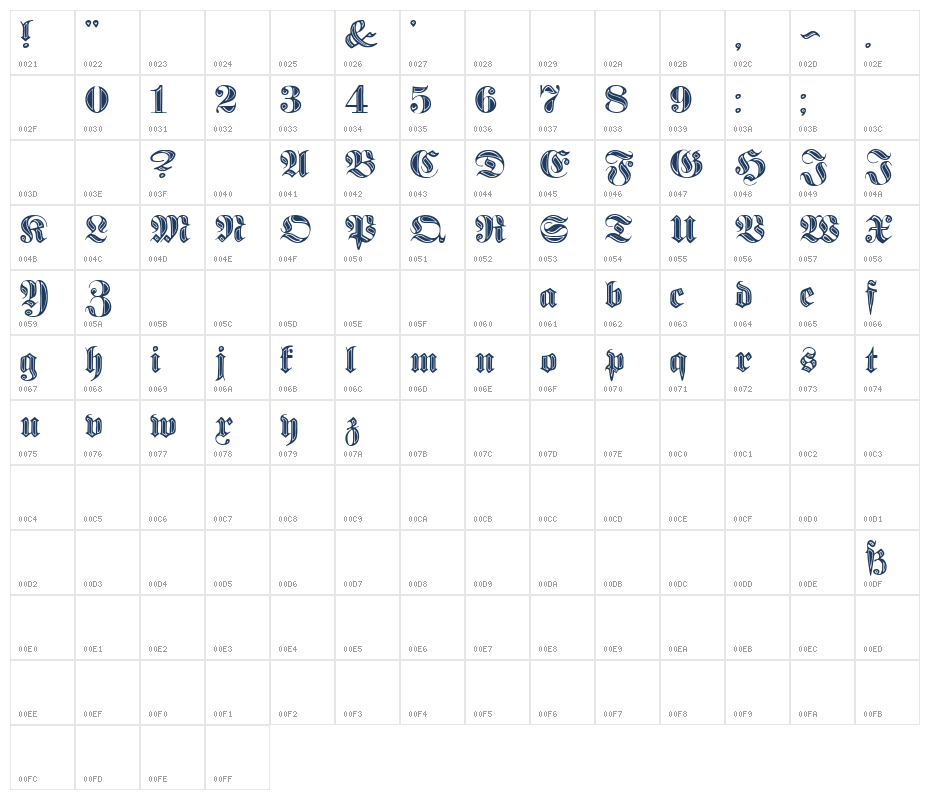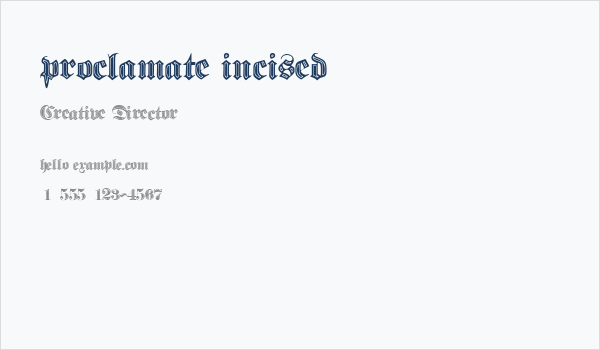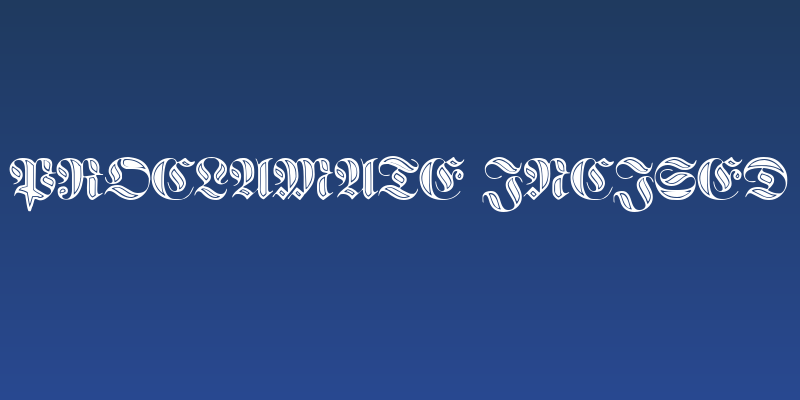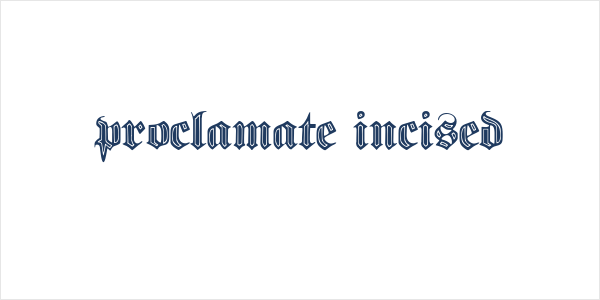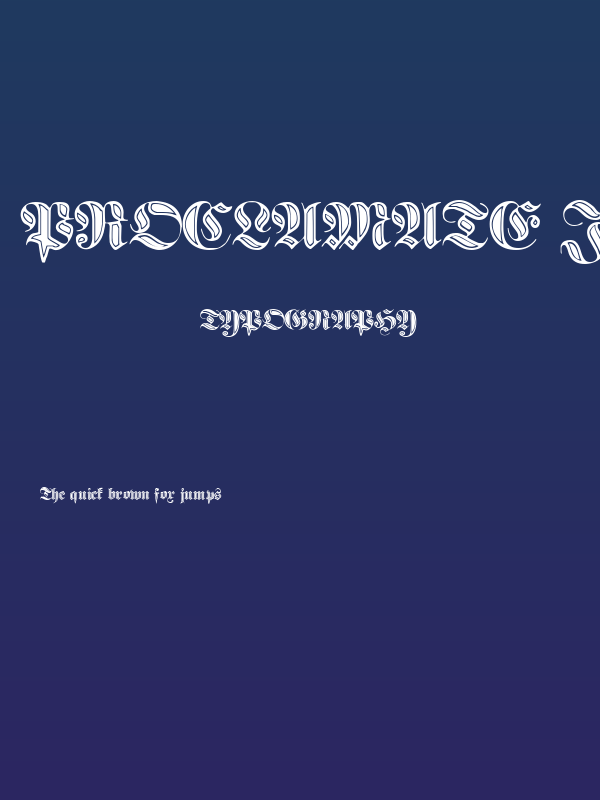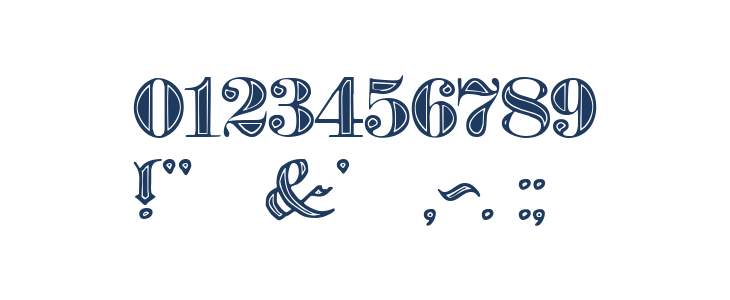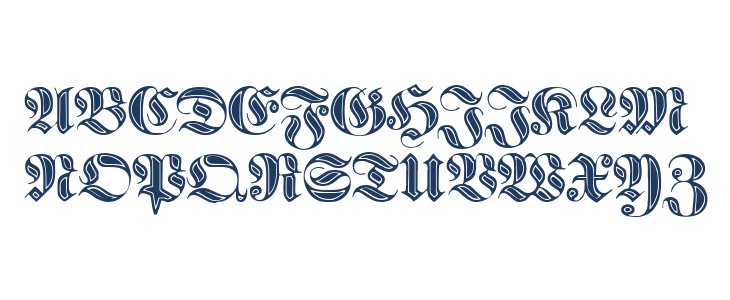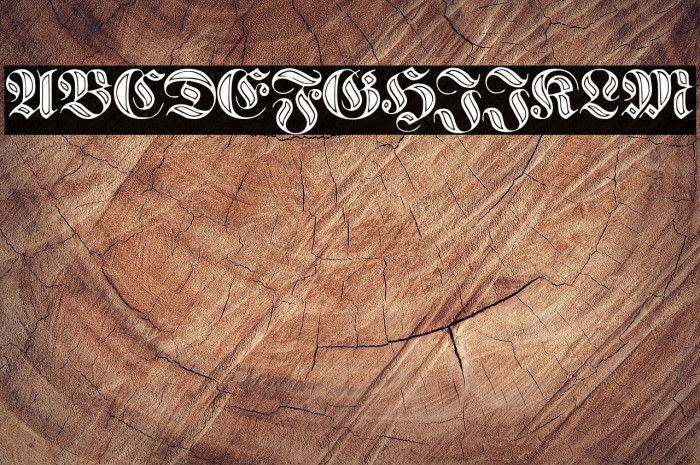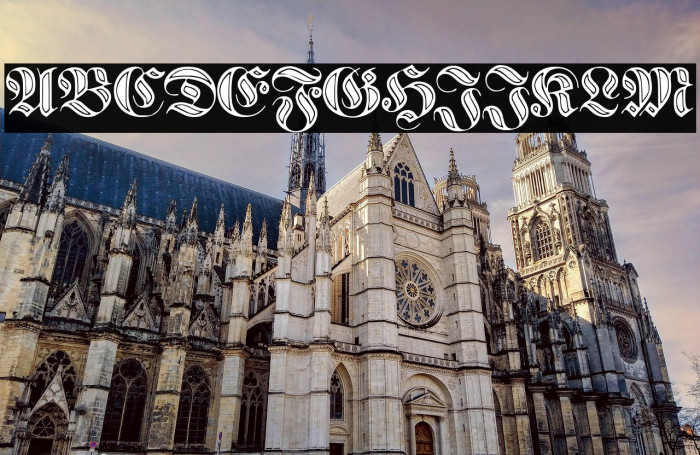
proclamate incised Font
proclamate incised Description
Decorative Gothic/Blackletter style font with intricate, ornate details and a medieval appearance.
| Overall Style | Gothic, Medieval, Ornate |
| Use Case | Logos, Headlines, Tattoos, Posters |